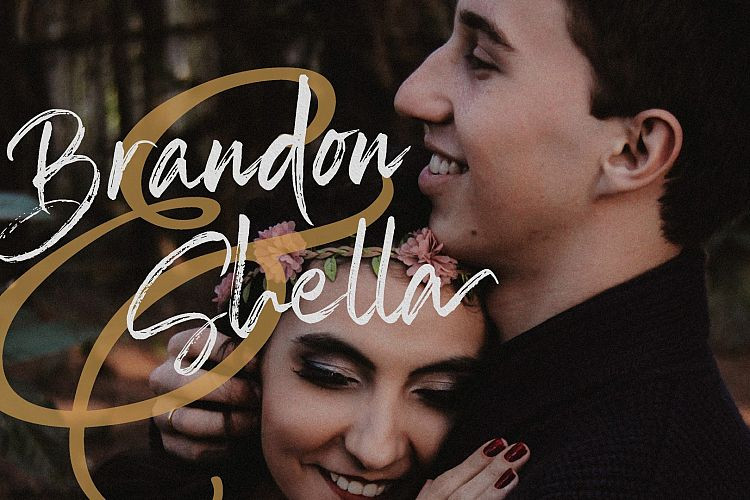
Sail Royals Brush Font
Sail Royals Brush Demo Font
A new brush script font by Mas Anis. This is a Hand brushed typeface, this font is ideal for large headers, straplines and typographic composition, but it still gives a great dynamic effect when writing wordy paragraphs. Introducing Sail Royals Font. SailRoyals! Handwritten font with a personal charm. Each letters was made with brushpen on real paper, then scanned and crafted to vector carefully to add strong characteristic. With quick dry strokes and signature style, SailRoyals is perfect for branding projects, homeware designs, product packaging – or simply as a stylish text overlay to any background image like quote images.